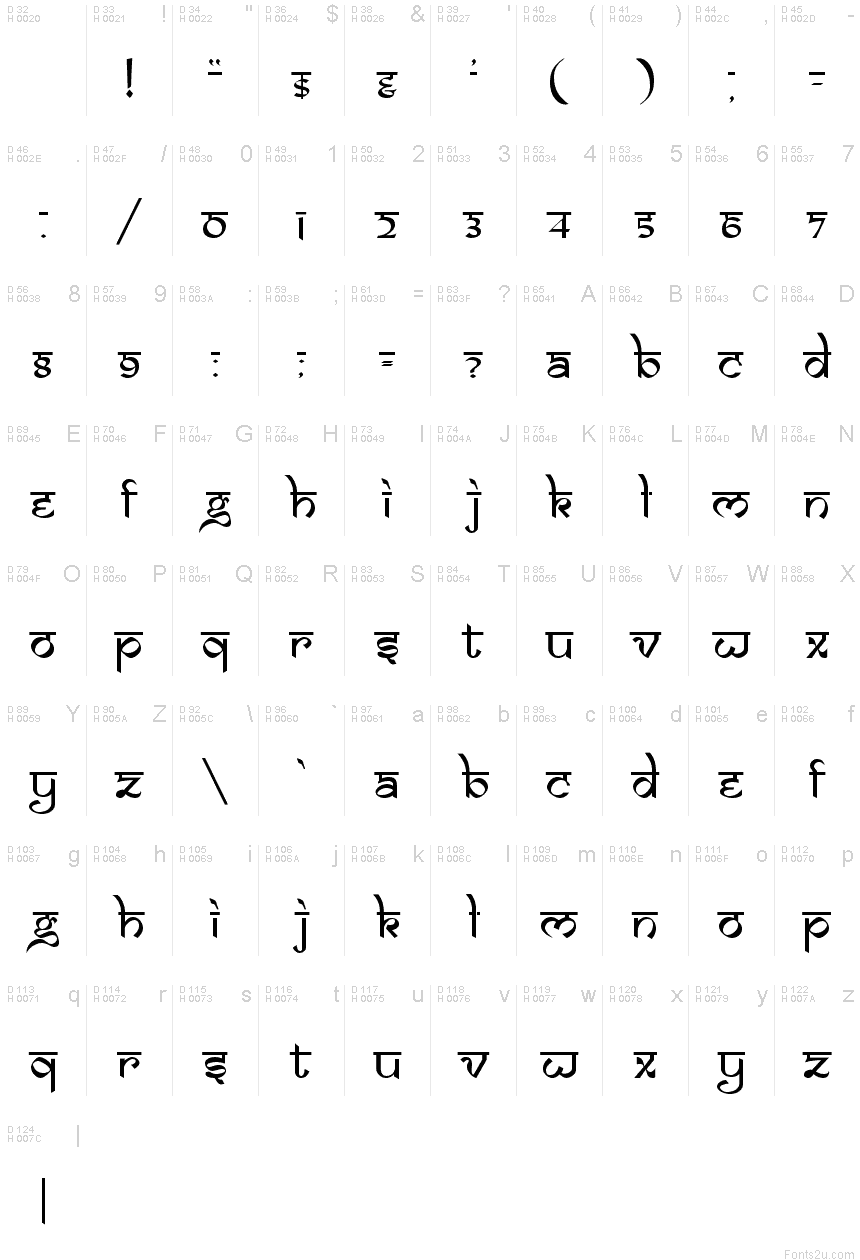
Samarkan Normal
Samarkan from Titivillus Foundry/Ethel Enterprises is a free Indo-Arabic display font with a 1993, hand-drawn feel. The letters borrow the rhythm of Devanagari headlines, with a strong horizontal band across the top, curling strokes, and pointed joins that make the alphabet feel ornamental without turning fussy.
It fits music posters, restaurant branding, festival flyers, book covers, and title cards where a free font can suggest South Asian calligraphy without pretending to be formal script. Use it when you want short words, logos, or monograms to carry the mood, because the sweeping tops and hooked endings do most of the visual work fast.